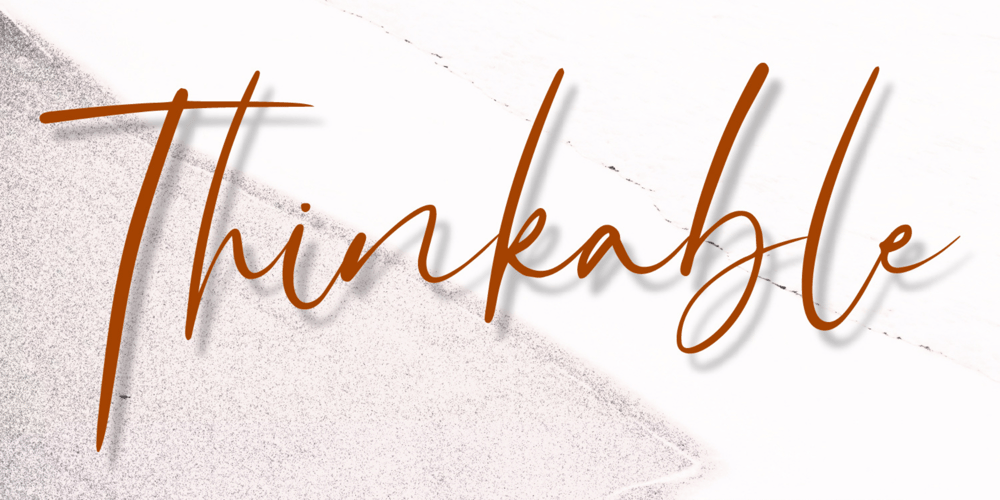
Thinkable Font Family was designed by Irpan Maulana and published by Create Big Supply. Thinkable contains 1 styles and family package options. Introducing Thinkable, a captivating handwritten font that brings a natural and authentic touch to your designs. With its multiple ligatures, Thinkable mimics the look and feel of real handwriting, evoking a sense of creativity and personal expression. Get inspired by its beautiful style and use it to create stunning wedding invitations, captivating stationary art, eye-catching social media posts, and more. The possibilities are endless!Thinkable offers a comprehensive set of features, including both uppercase and lowercase letters, numbers, and punctuations. This versatility allows you to craft diverse and engaging designs across different projects. The font’s multilingual support ensures seamless integration of various languages, enabling you to connect with a global audience and communicate your message effectively.With PUA encoding, Thinkable provides easy access to an array of amazing glyphs and ligatures. These special characters enhance the visual appeal of your text, adding unique flourishes and connections that elevate your designs. Whether you’re designing logos, branding materials, or personal projects, Thinkable empowers you to create memorable and impactful compositions.Unleash your creativity and unlock the potential of your designs with Thinkable. Embrace the charm of handwritten typography and infuse your projects with a sense of authenticity. Whether you’re a designer, an artist, or a creative enthusiast, Thinkable is the perfect companion for expressing your ideas and capturing the essence of your vision.